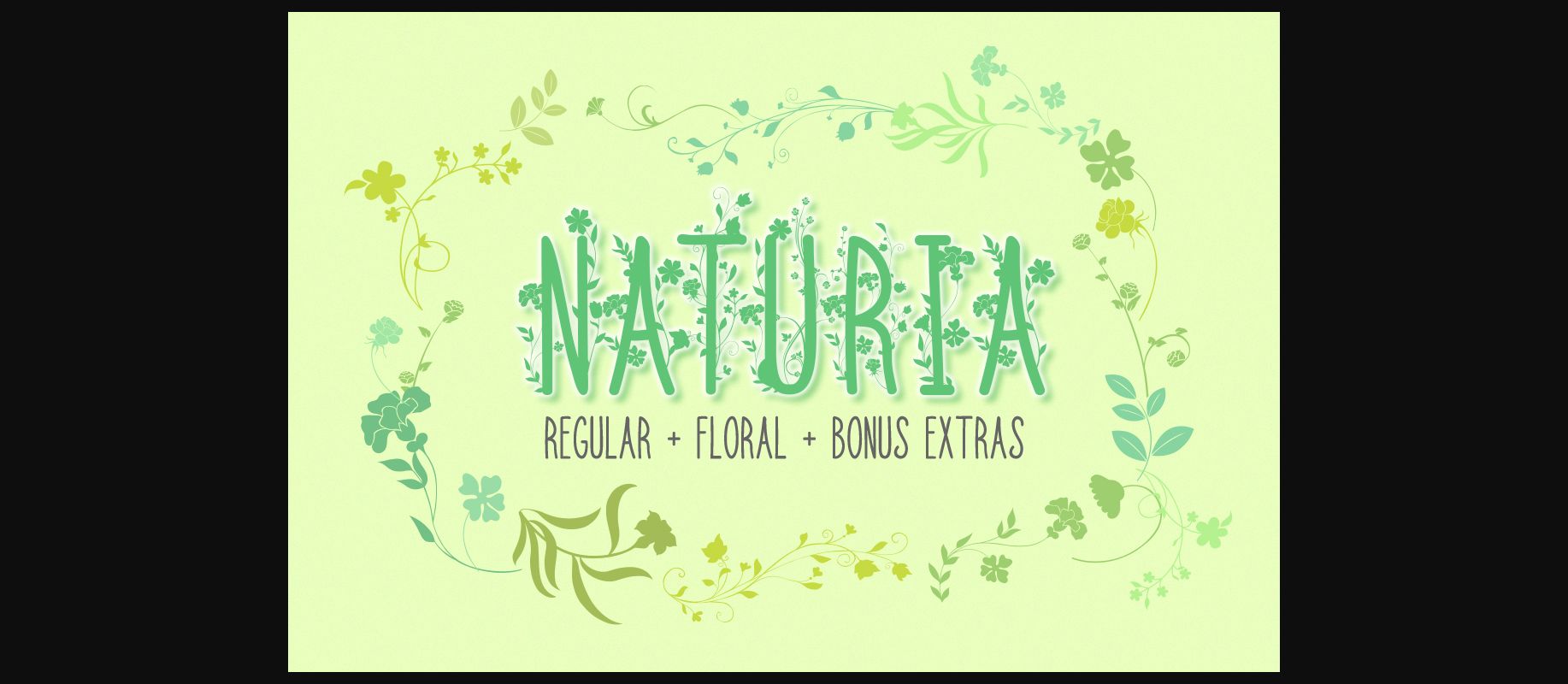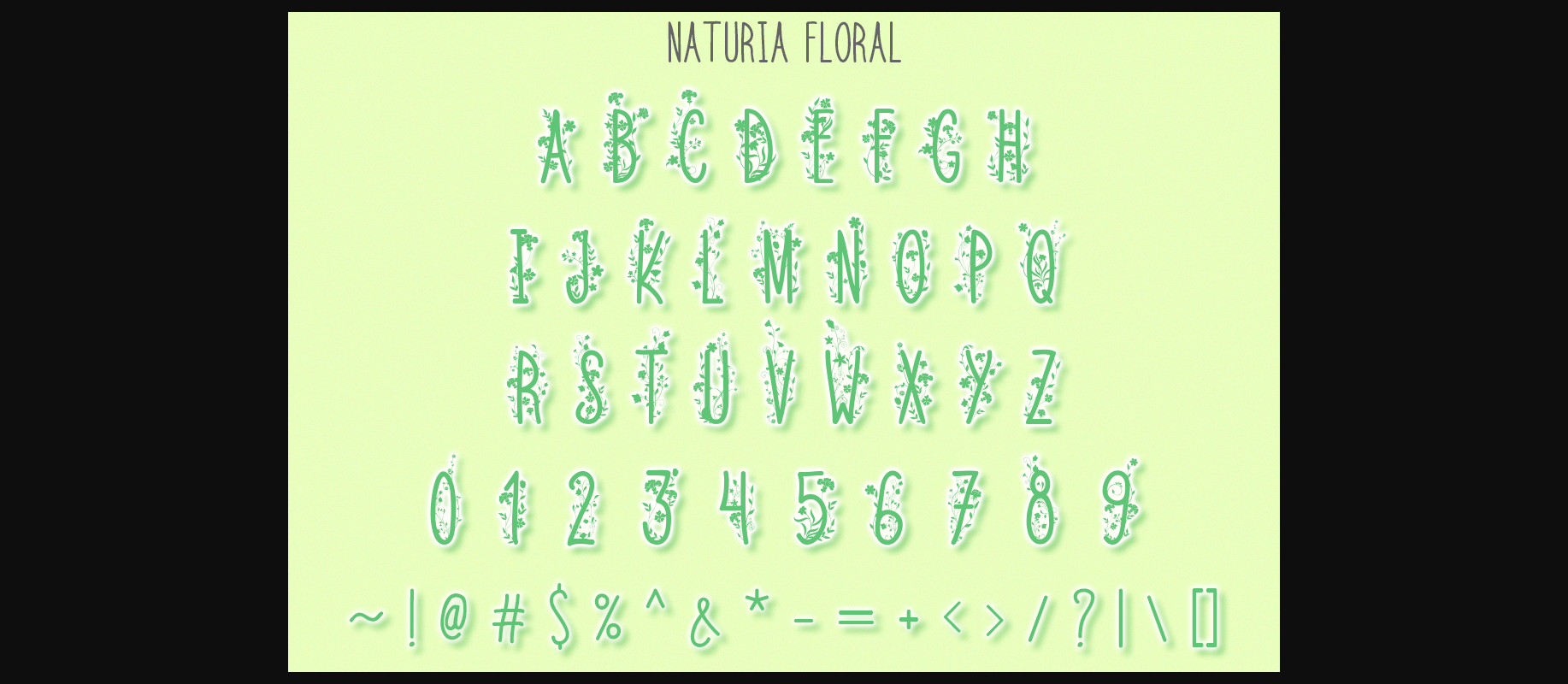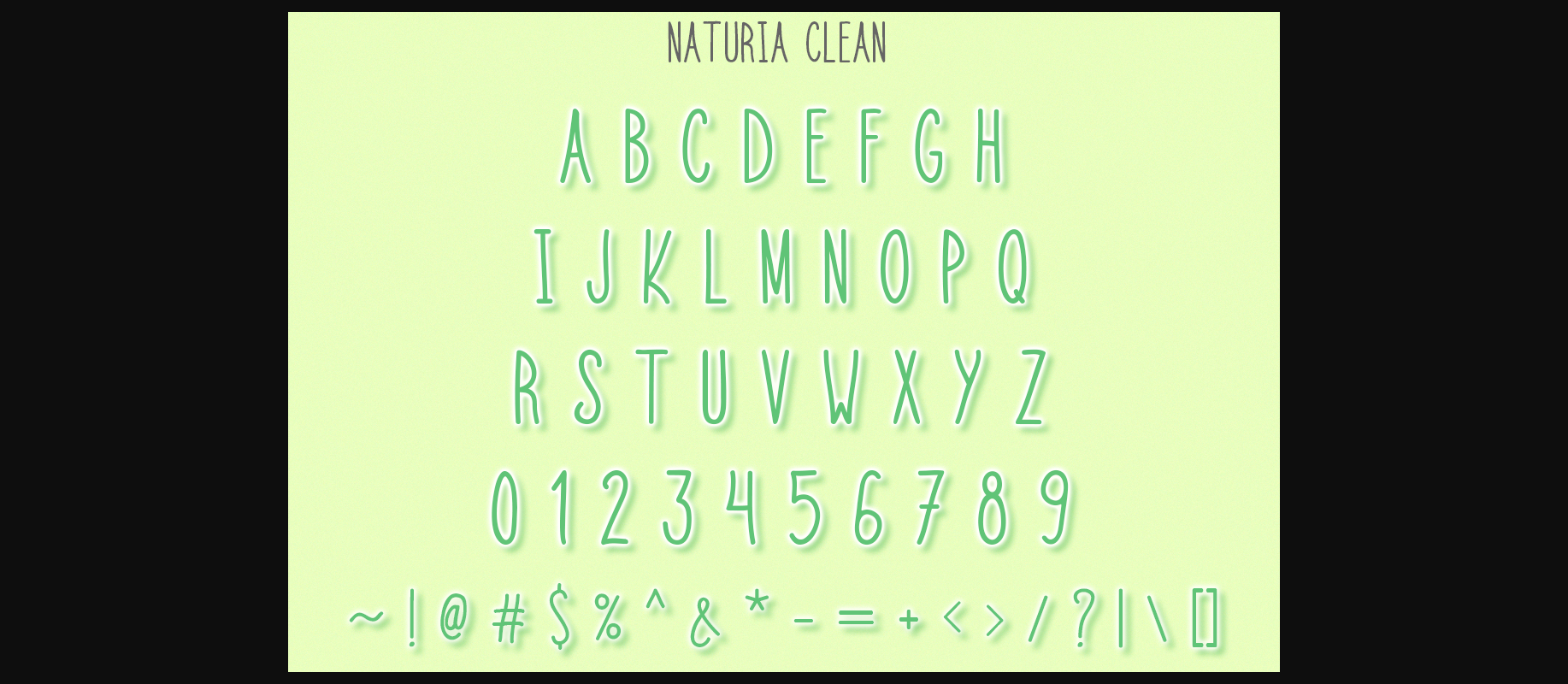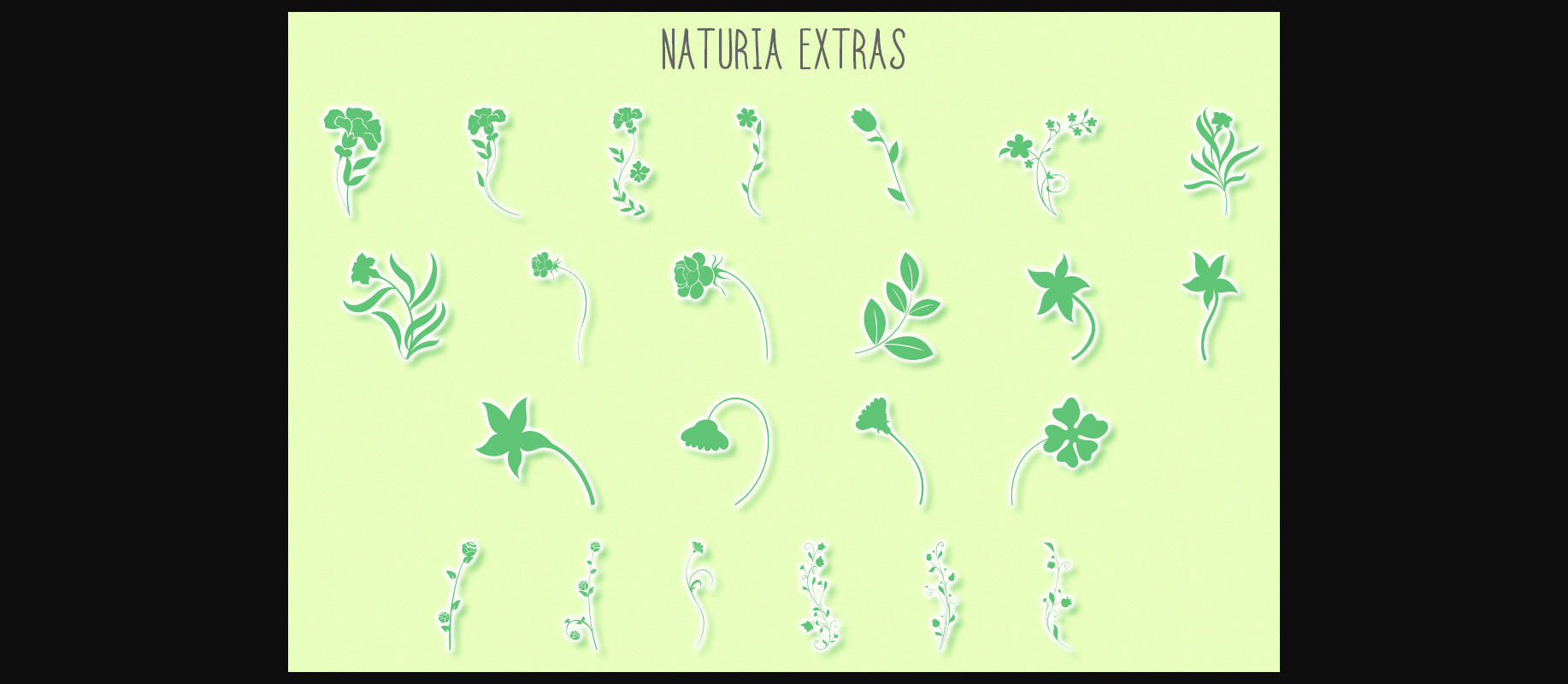
Naturia Font
About Naturia Font
This font is intended to be used as a header font, ornamental font and for craft products!
In the download you get three fonts:
– Naturia Clean. Includes uppercase A-Z letters, numbers and punctuation.
– Naturia Floral. Includes uppercase A-Z letters, numbers and punctuation.
– Naturia Extras with 23 floral designs (A-W letters)